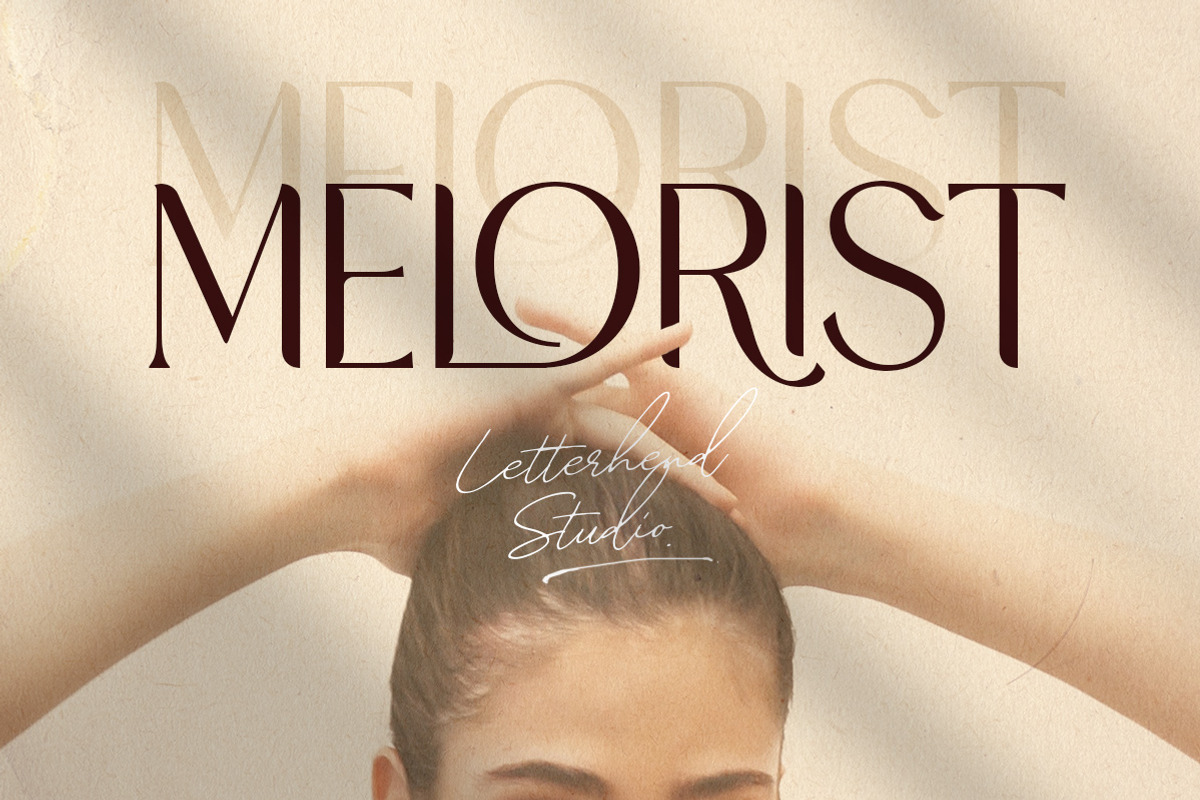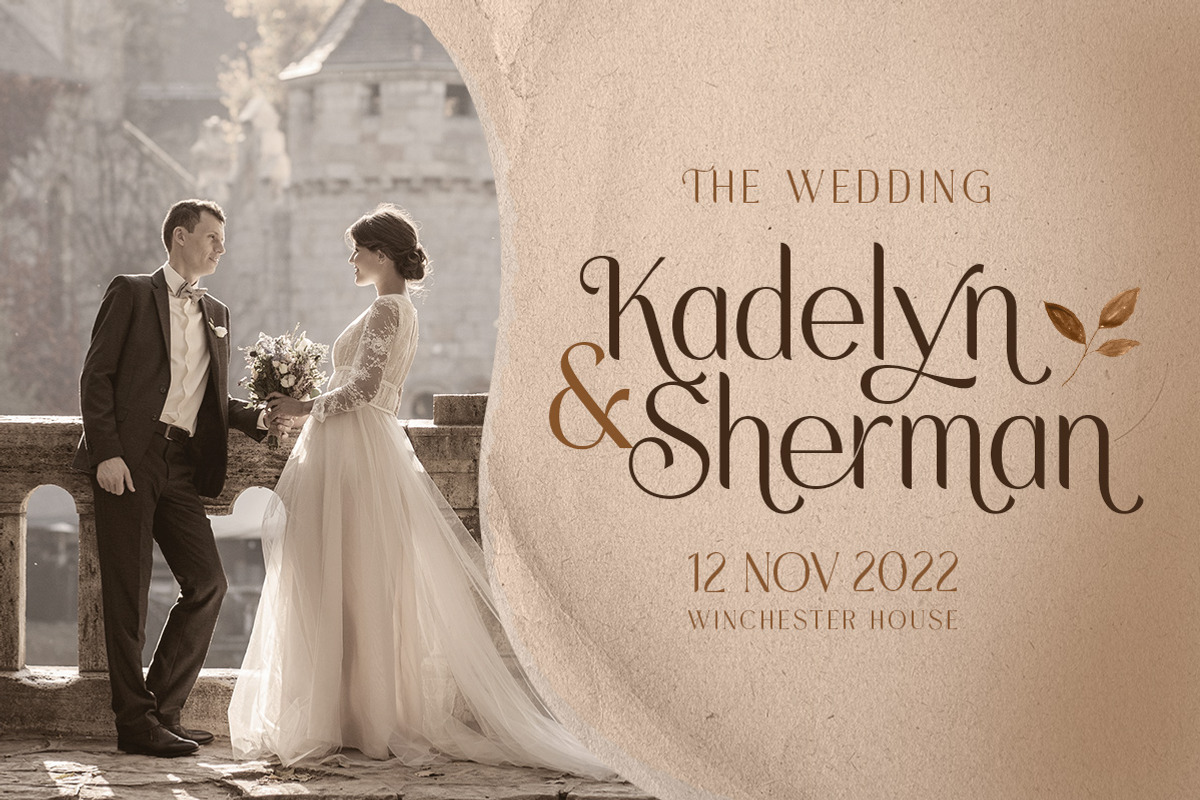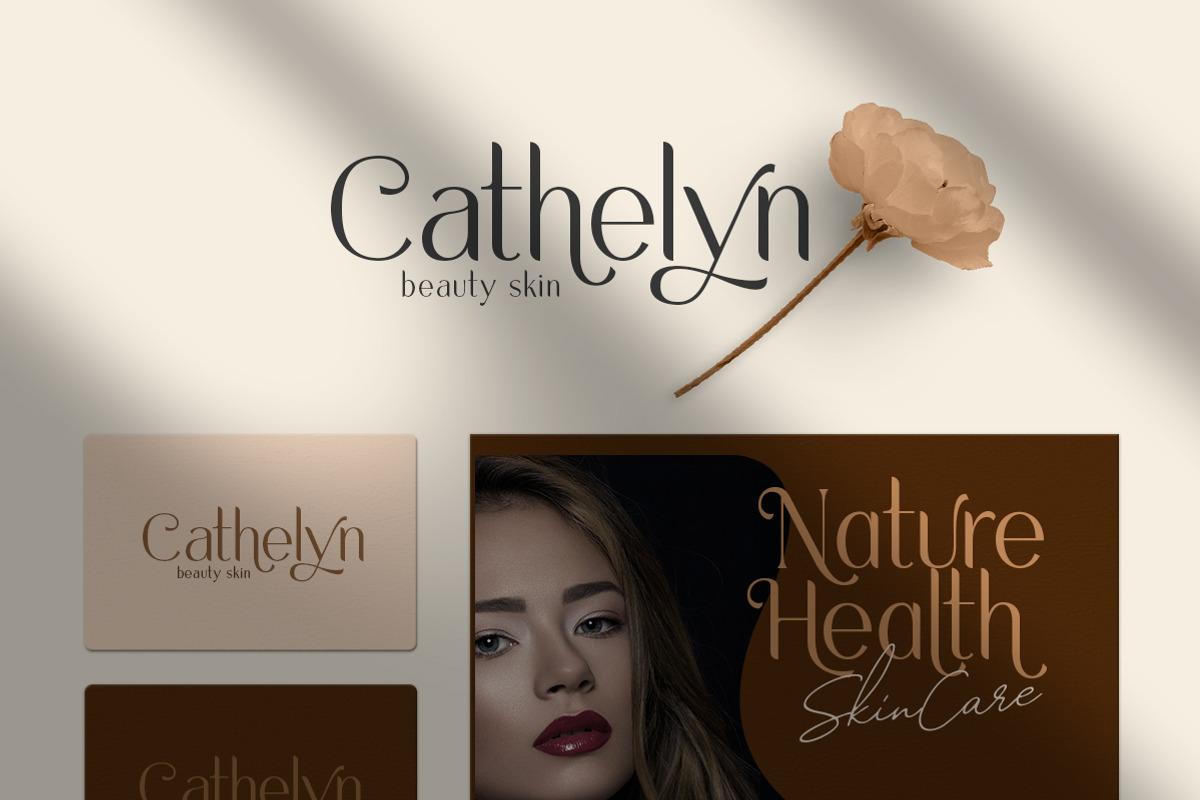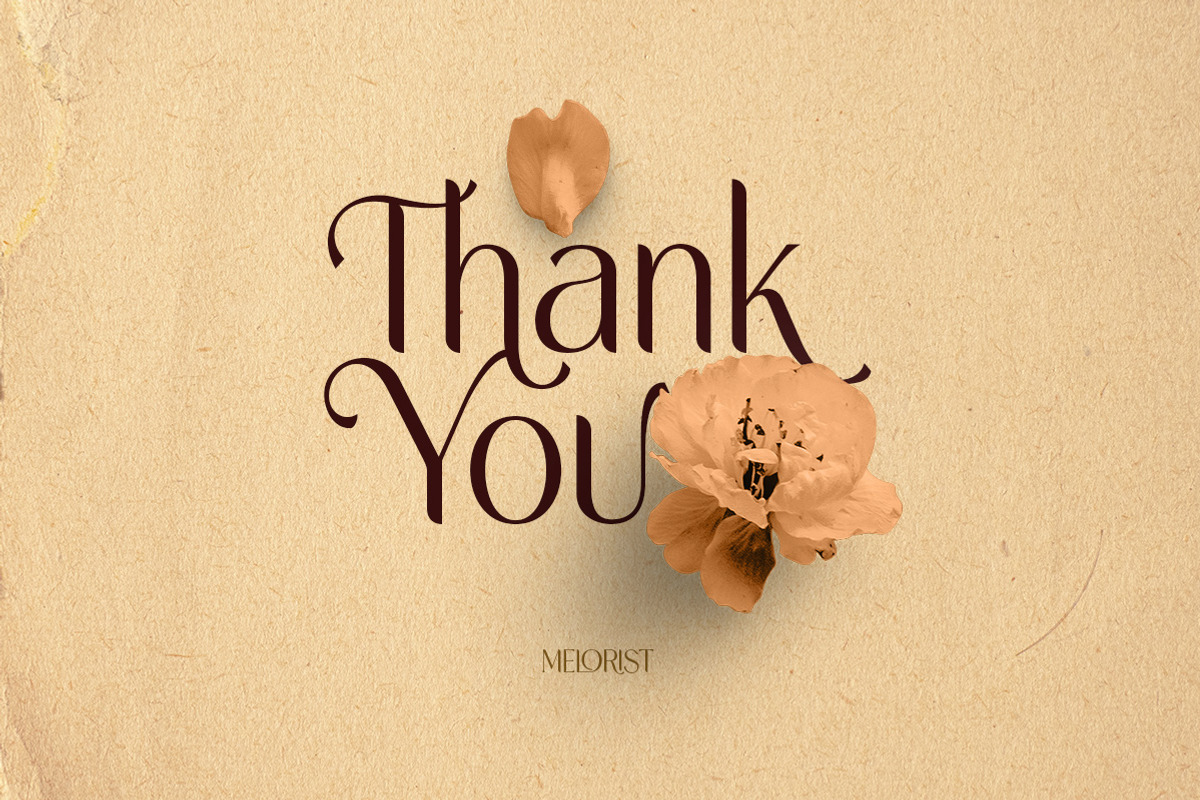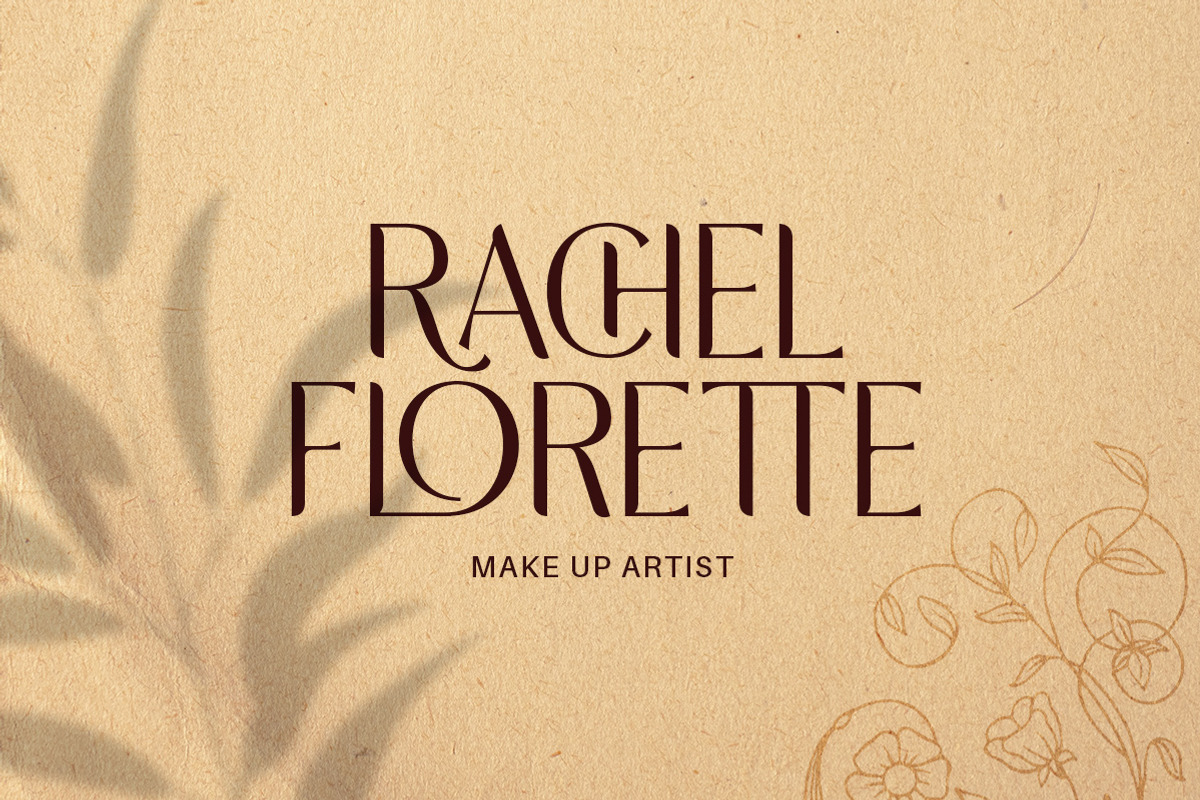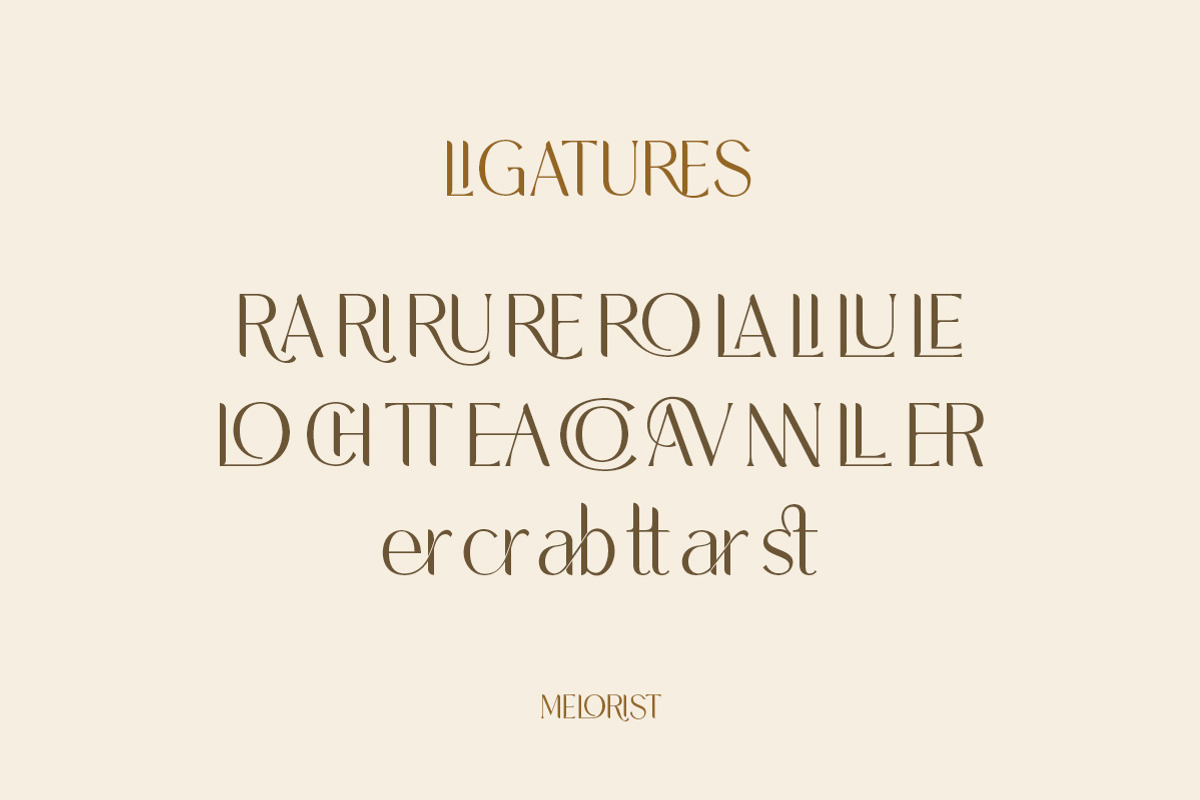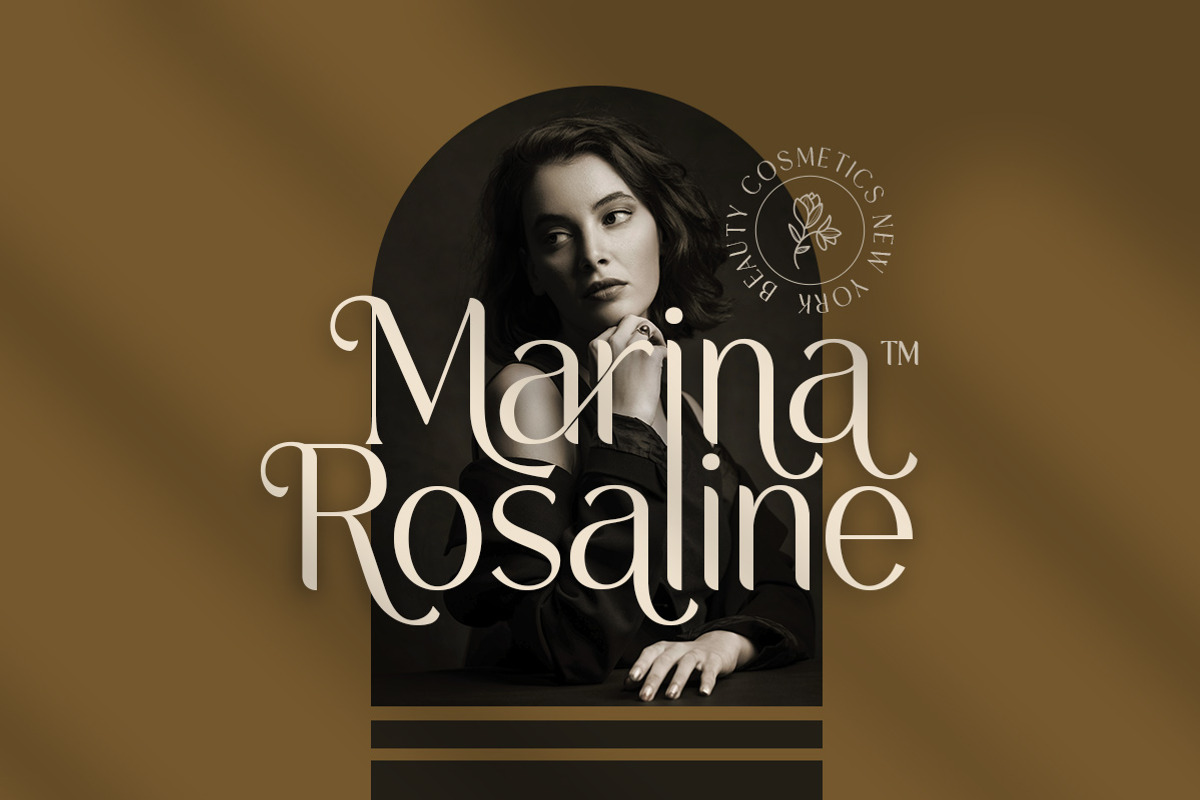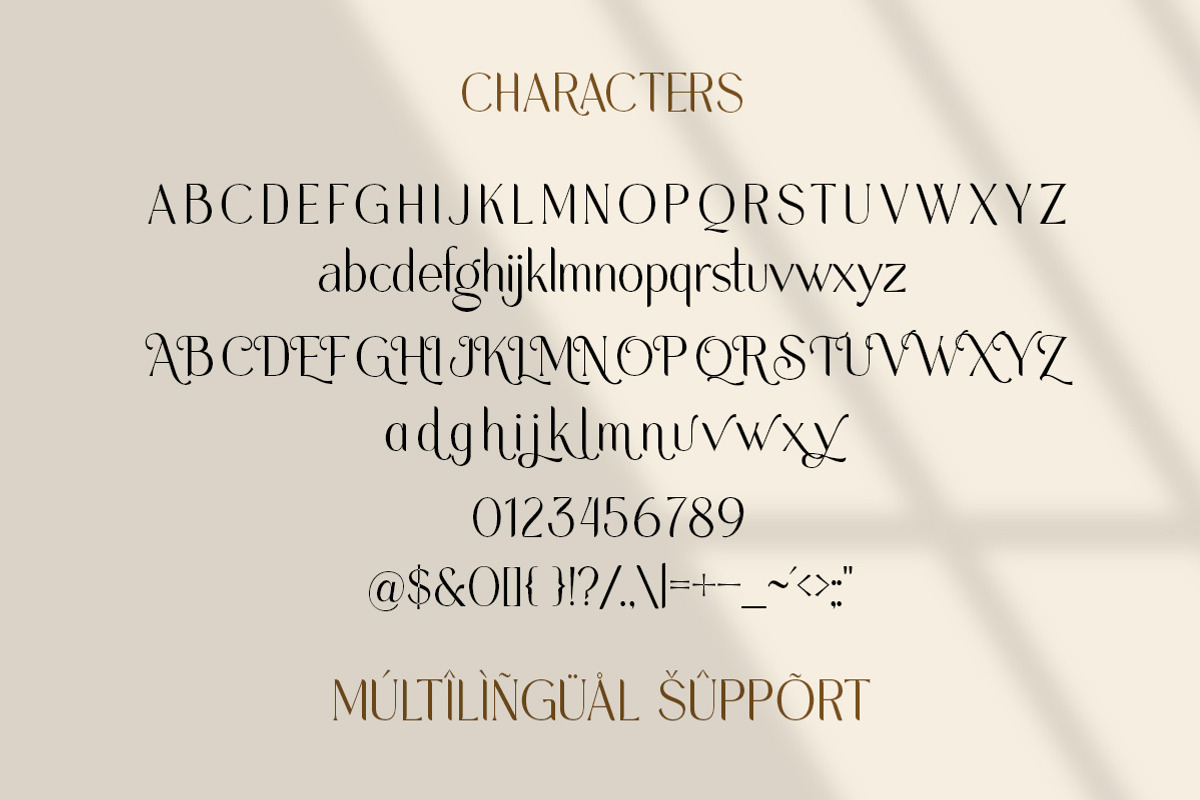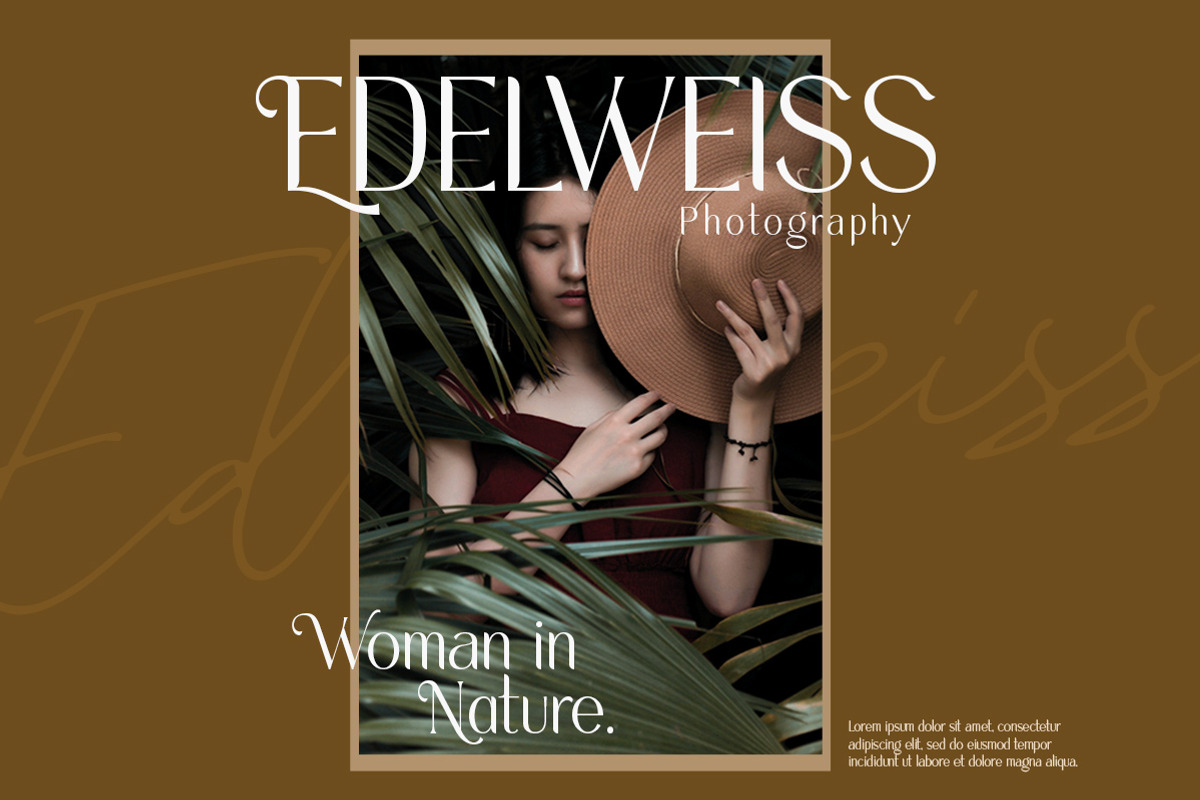
Melorist - Display Ligature Font
Introducing, Melorist, a Display Ligature Font. This font has neat and sleek letterform, make it looks great to be used for modern and minimalistic design theme. The stylistic alternates and ligatures make this font event more unique and stands from the crowd. This font perfectly made to be applied especially in logo, and the other various formal forms such as invitations, labels, logos, magazines, books, greeting / wedding cards, packaging, fashion, make up, stationery, novels, labels or any type of advertising purpose.
- alternates & ligatures